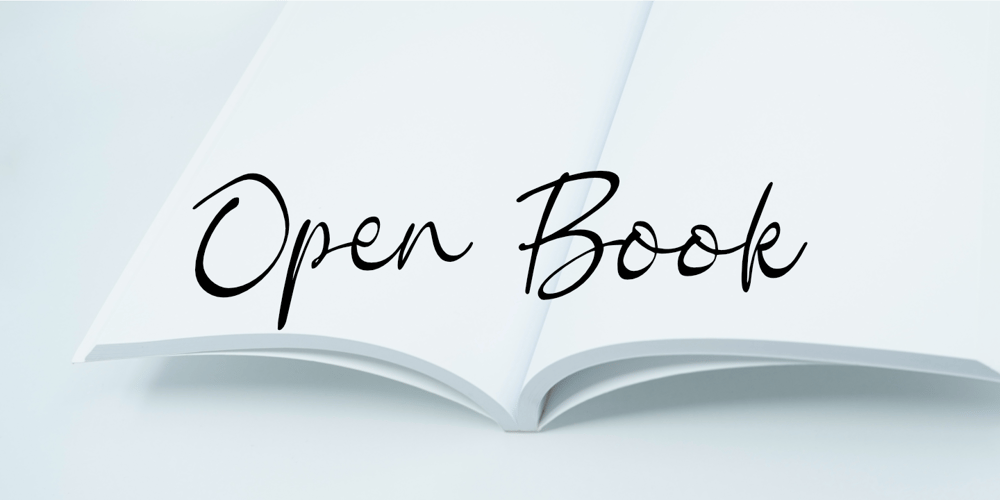
Open Book Font Family was designed by Nurul Hidayani and published by Olivetype. Open Book contains 1 styles and family package options. Open Book is a stylish and lovely script font. It is a nice choice for creating eye-catching logos, branding, and quotes.This script font is supporting more than 66 languages, which include: Afrikaans Albanian Catalan Danish Dutch English Estonian Finnish French German Italian Norwegian Portuguese Spanish Swedish Zulu, and more.So what’s included : Basic Latin A-Z & a-z. Numbers, symbols, and punctuations Ligatures Multilingual Support. Accented Characters : ÀÁÂÃÄÅÆÇÈÉÊËÌÍÎÏÑÒÓÔÕÖØŒŠÙÚÛÜŸÝŽàáâãäåæçèéêëìíîïñòóôõöøœšùúûüýÿžß Thank you